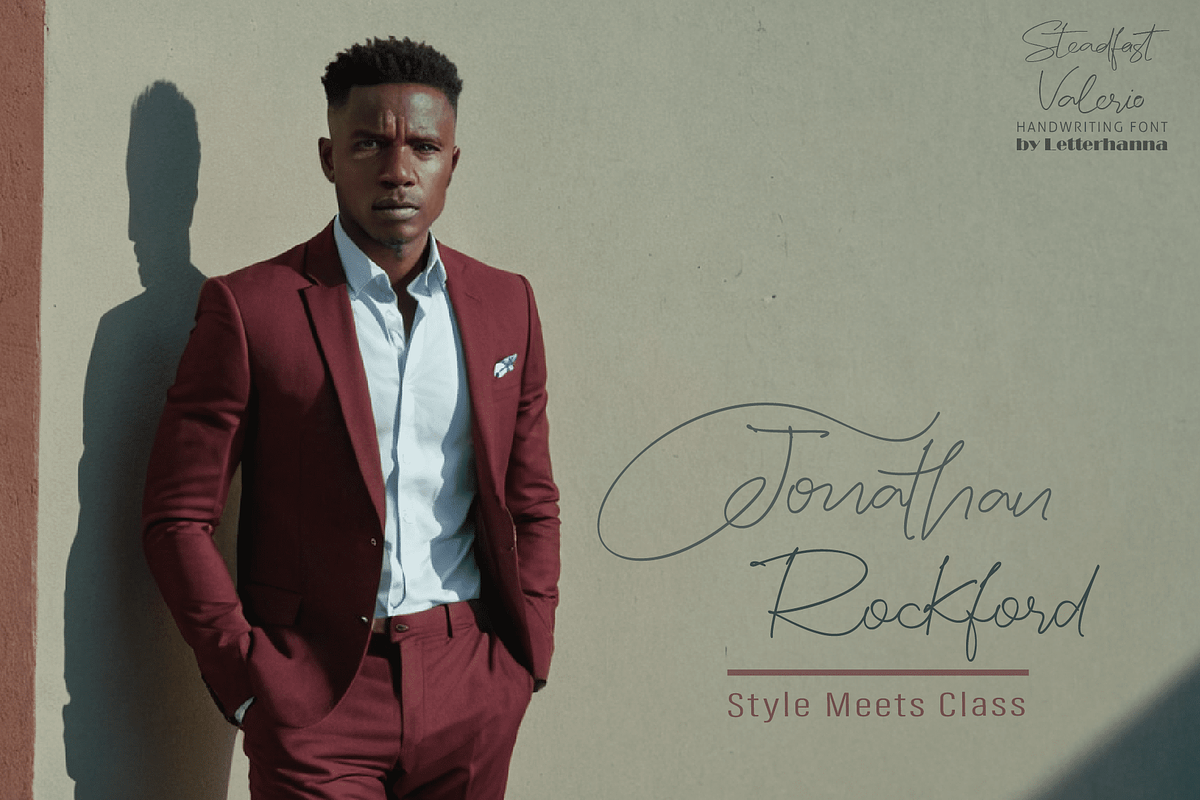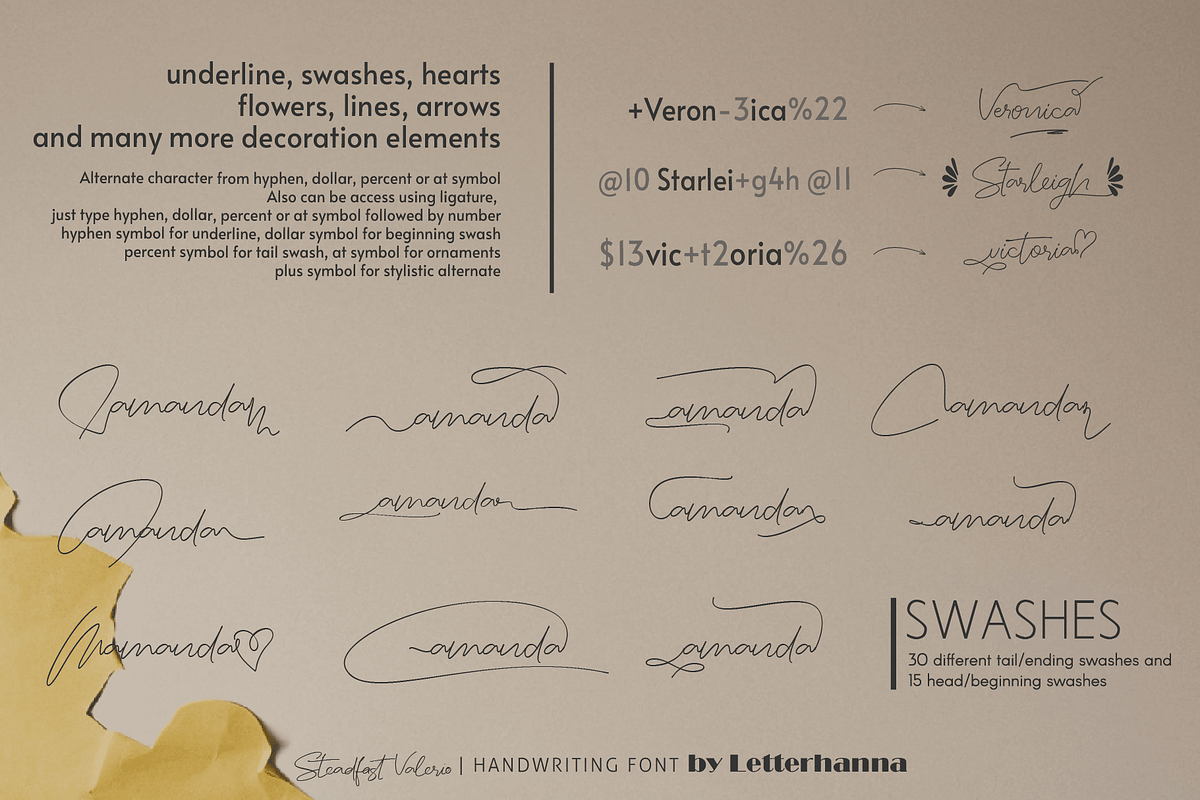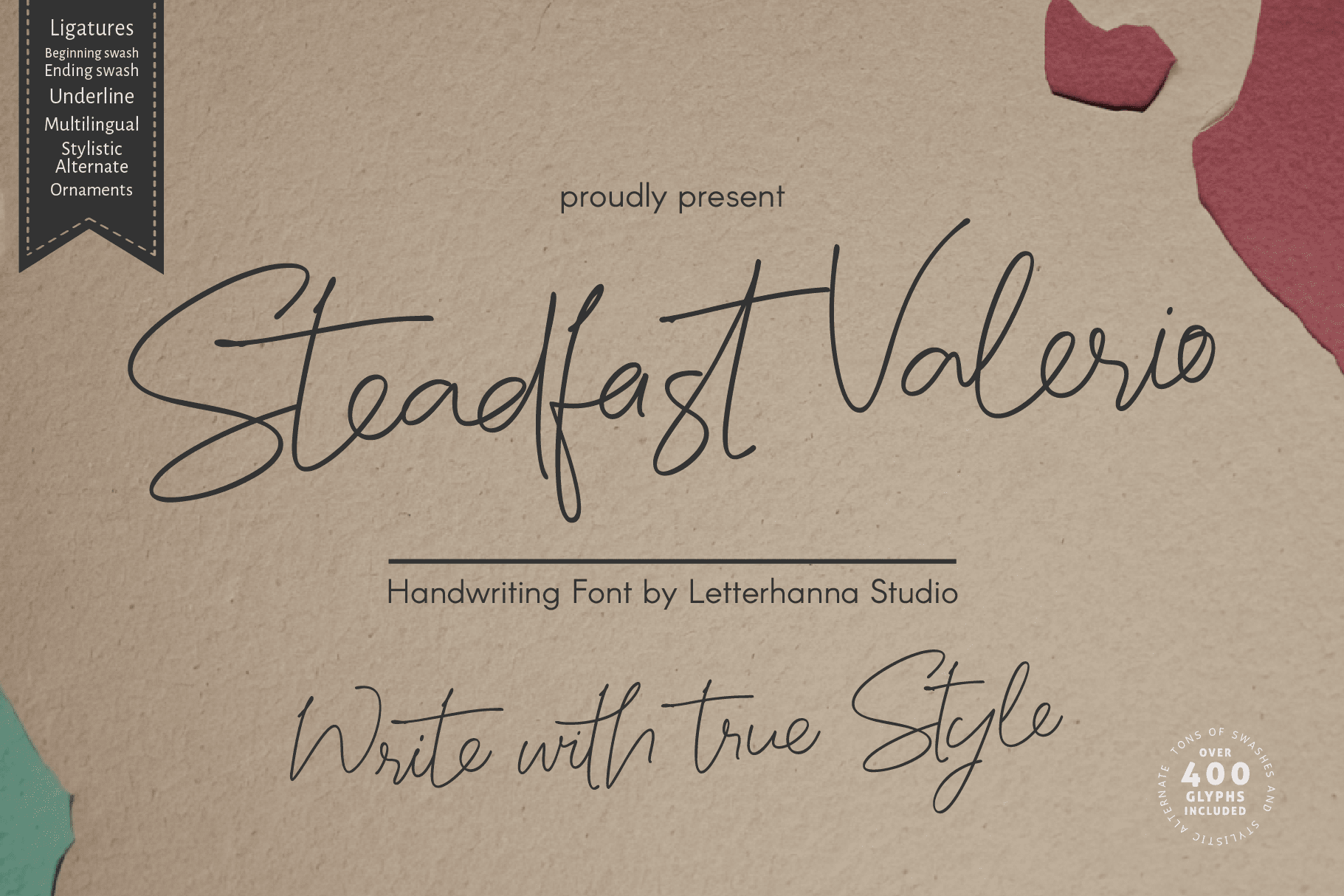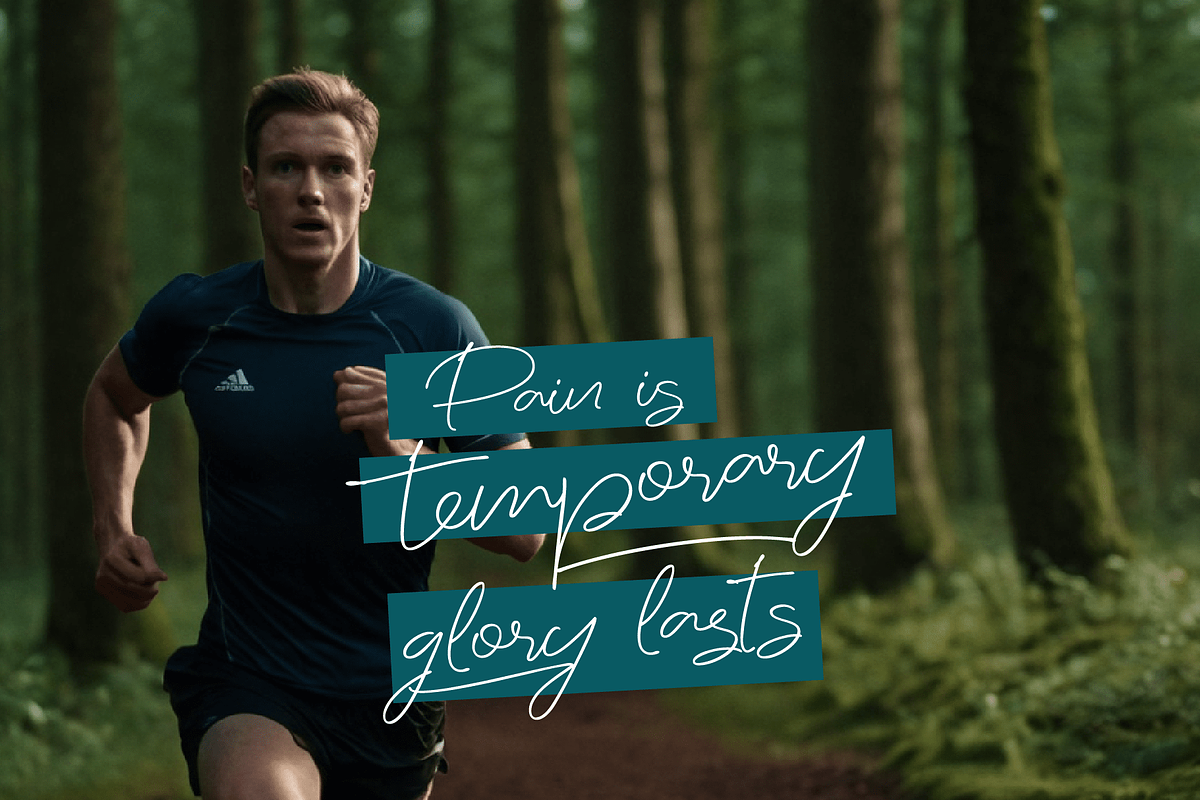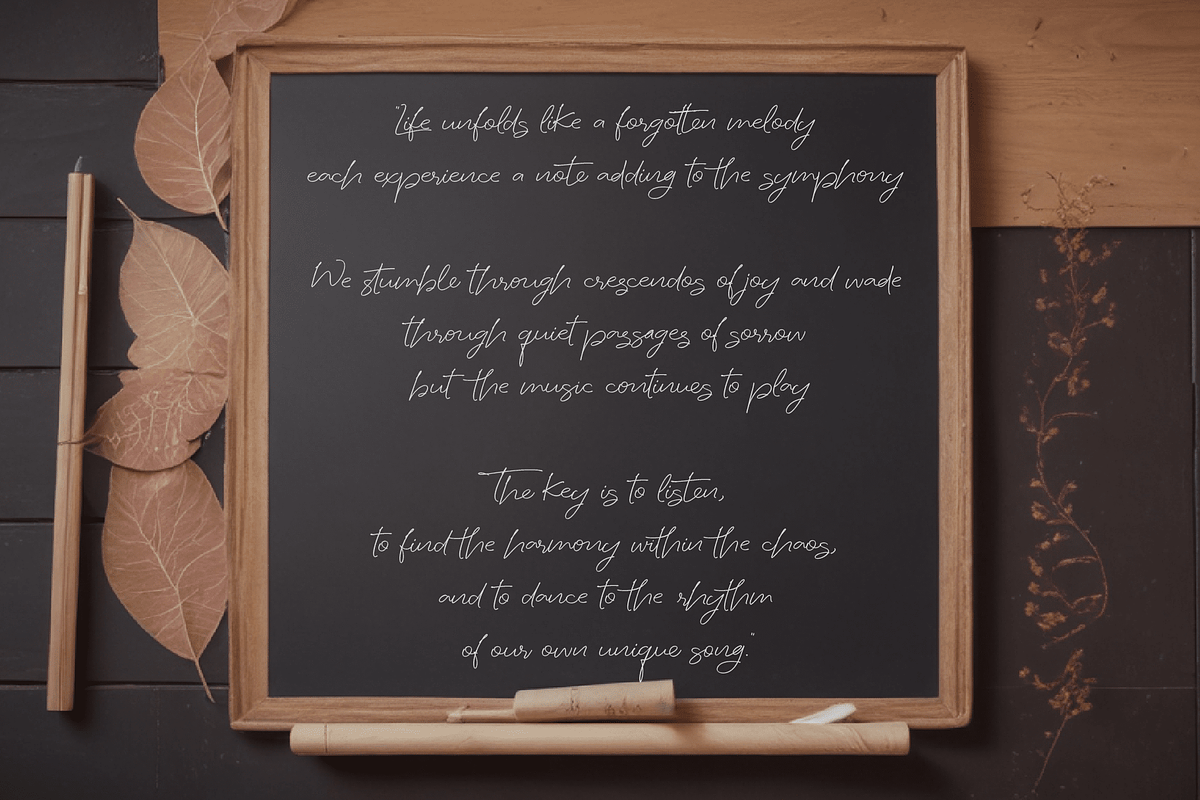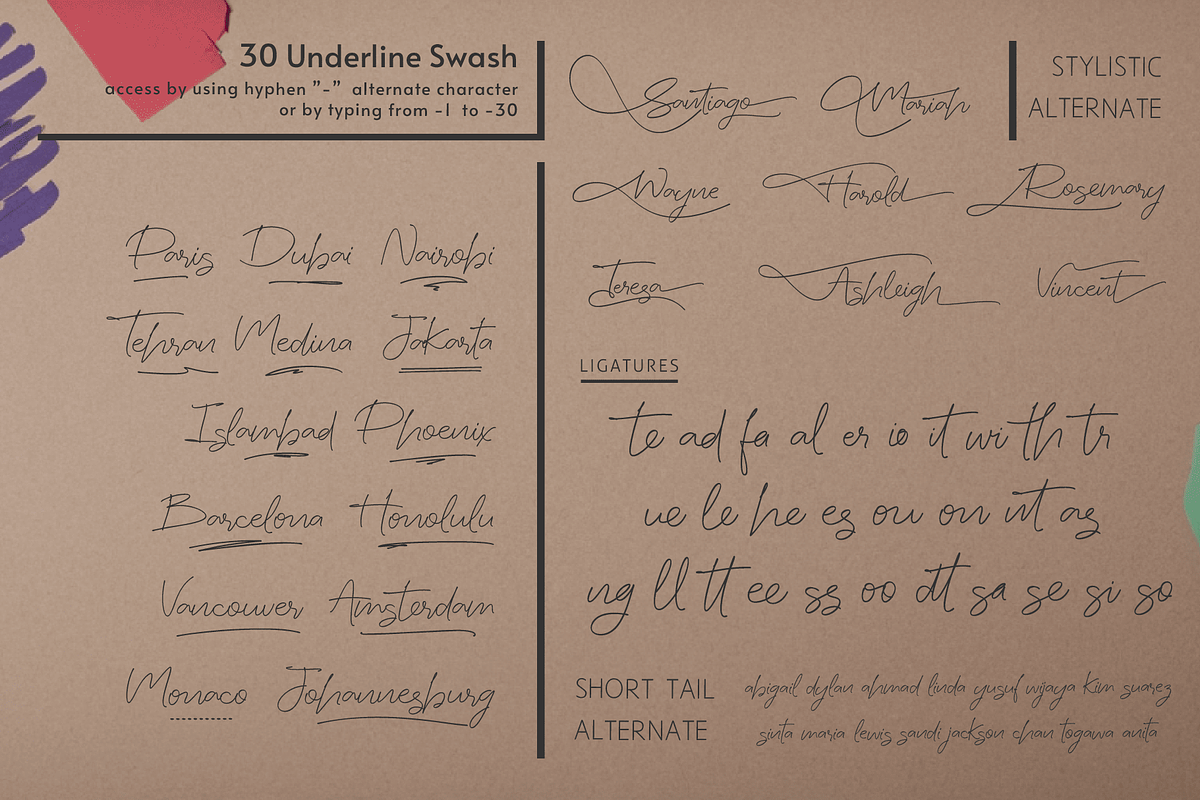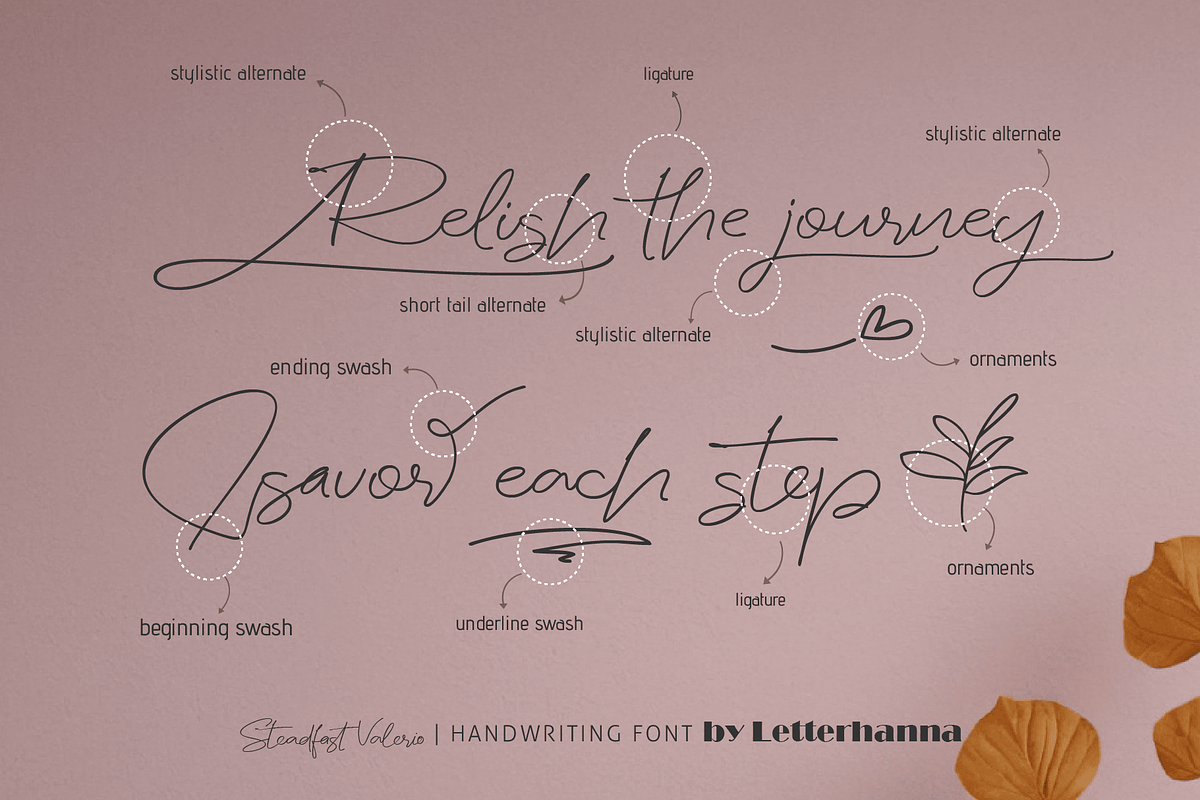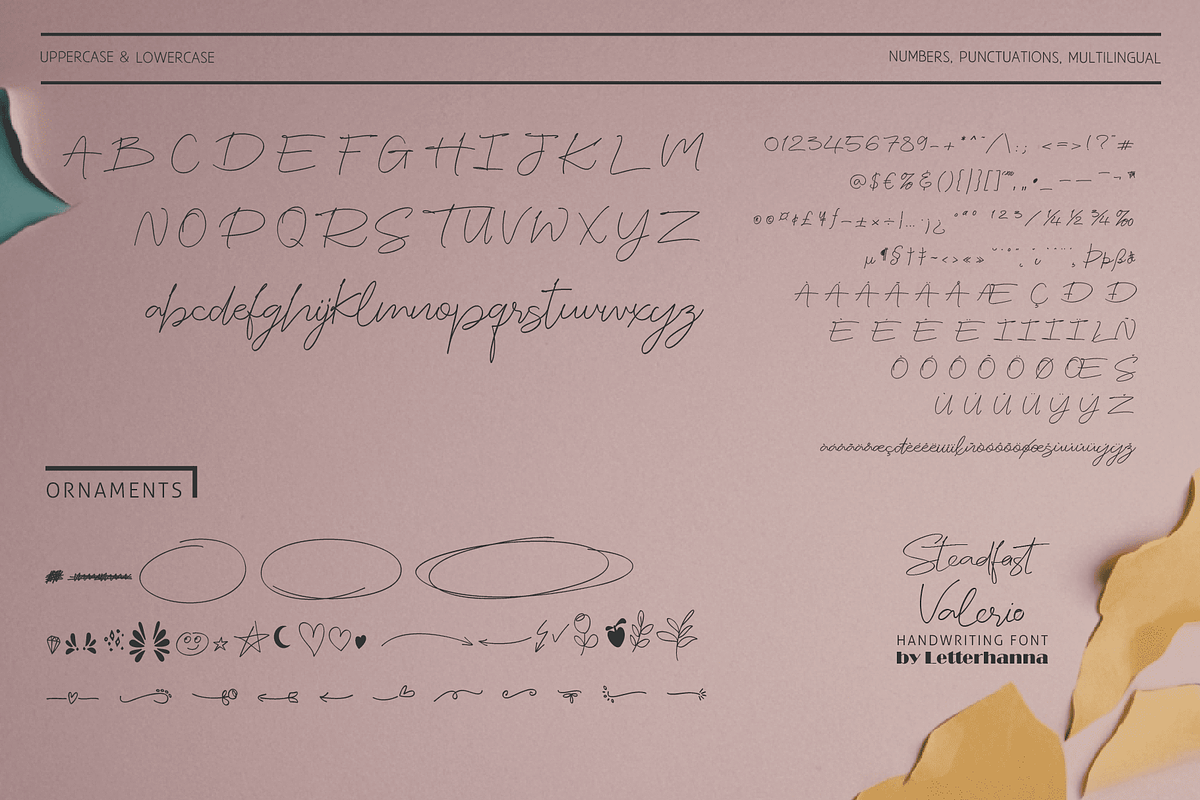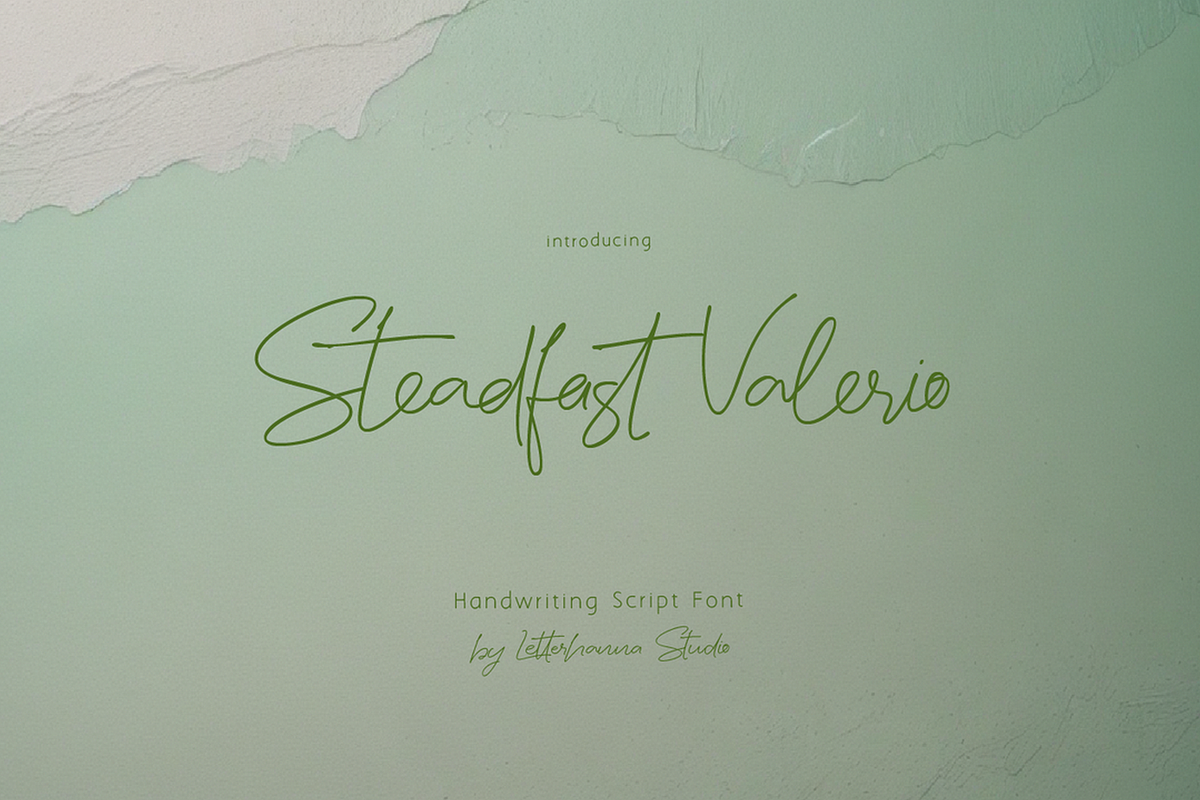
Steadfast Valerio Font
Introducing Steadfast Valerio, a thin signature font that blends elegance with natural handwriting flow. Designed with unique ligatures and smooth, fluid strokes, this font captures the essence of personal touch and sophistication. Perfect for branding, logos, invitations, and stylish typography, Steadfast Valerio brings a refined yet effortless charm to every design. Let your words shine with grace and authenticity!
Easy Access to Glyphs and Swashes
Gain easy access to all alternate glyphs, swashes, ornaments, and underlines by simply using ligatures. You can try them out yourself in the font preview tool on our website, letterhanna.com.
Accessing Swashes and Ornaments
Underline Swashes: Use a hyphen symbol "-" followed by a number between 1 and 30. For example, type "-3", "-22", or "-17" to get various underline swashes.
Head/Beginning Swashes: Use a dollar sign "$" followed by a number between 1 and 9. For example, type "$2" or "$8" to get different head/beginning swashes.
Tail/Ending Swashes: Use a percent sign "%" followed by a number between 1 and 30. For example, type "%3" or "%15" to get various tail/ending swashes.
Ornaments: Use an "at" symbol "@" followed by a number between 1 and 26. For example, type "@4" or "@13" to get different ornaments.
PUA Encoding for Ease of Use, which means you can access all the glyphs and swashes with ease!
Uppercase and lowercase letters
Numbers and punctuation marks
Beginning and ending swashes
Underline swashes
Ornaments
Easy access to swashes using ligatures